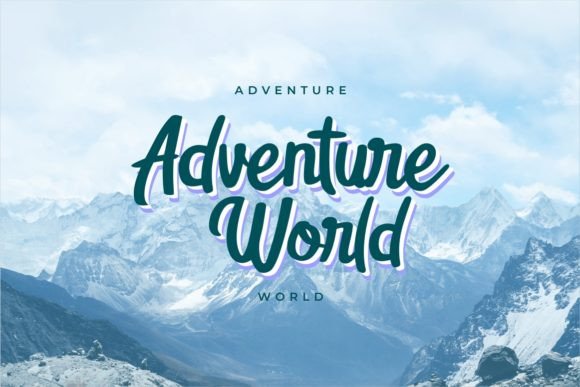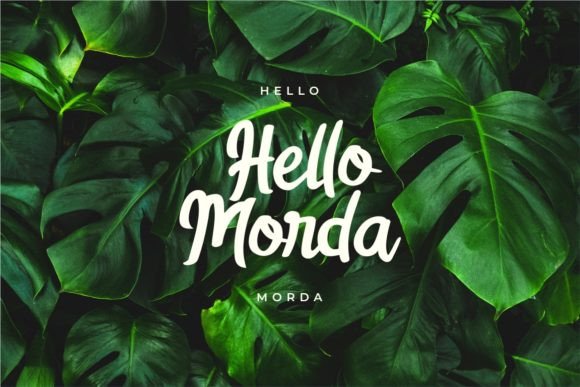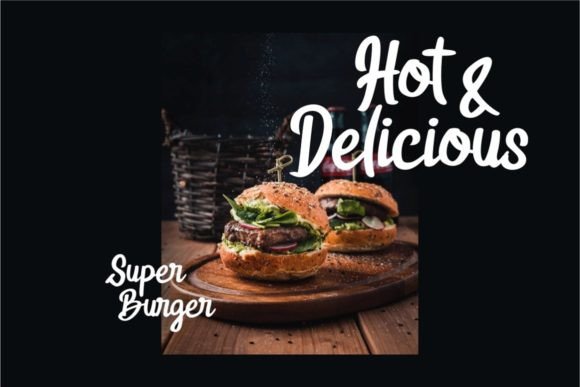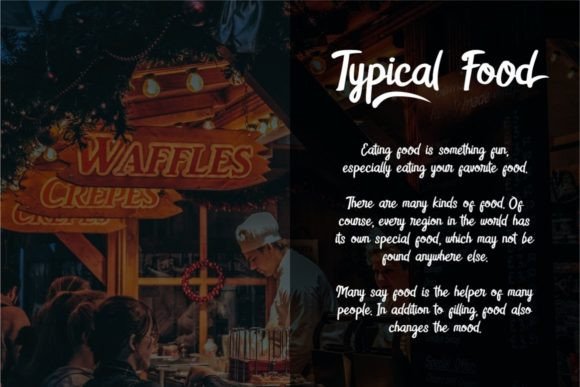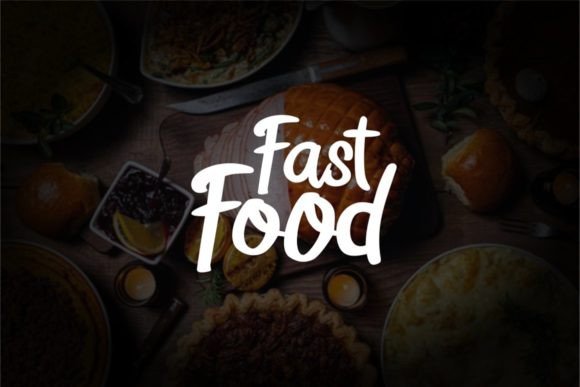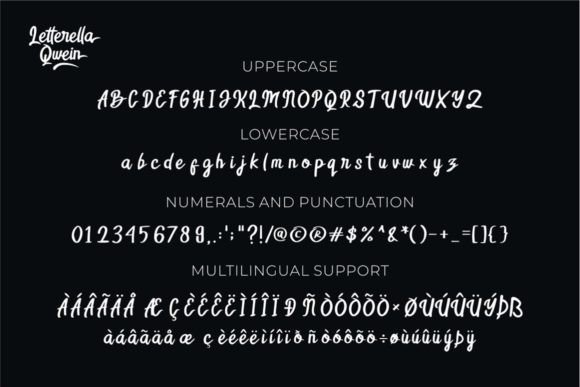
Introduction to Letterella Qwein Font
Have you ever found yourself in the midst of a creative project, desperately searching for the perfect font to bring your vision to life? The hours tick by, and the cursor blinks impatiently as you scroll through page after page of generic fonts. But then, it happens – you stumble upon that one font that makes your heart skip a beat. For designers, this moment is pure magic, and it’s what makes the search for the perfect design resource so thrilling.
Enter the Letterella Qwein Font, a stunning retro and paint brushed handwritten font that’s about to become your new best friend. With its elegant and curvy lines, this font is sure to make your work stand out from the crowd. Whether you’re working on a high-quality design project or simply need a unique touch for your next creative endeavor, the Letterella Qwein Font is the perfect addition to your toolkit.
- High-quality, professional design suitable for various creative projects, including logos, branding, and advertising materials.
- Features a unique, elegant design with a touch of sophistication, perfect for high-end or luxury branding projects.
- Designed to be highly legible and readable, even at small font sizes, ensuring that your message is conveyed clearly and effectively.
Honest Review: Letterella Qwein Font
As a designer, I’m always on the lookout for high-quality design resources that can elevate my creative projects. Recently, I stumbled upon the Letterella Qwein Font, and I must say it’s been a game-changer for me. ✨
Here are some of the things that I love about this font:
- High-quality design: The font is beautifully designed with a transparent background, making it perfect for any creative project.
- Unique style: The Letterella Qwein Font has a unique and elegant style that sets it apart from other fonts.
- No bold or italic options: The font does not have bold or italic options, which can limit its versatility.
Overall, I’m really impressed with the Letterella Qwein Font. It’s a great addition to any designer’s toolkit, and I highly recommend it for any creative project. Just be aware of its limitations and use it accordingly. ⚠️
The Letterella Qwein Font is a versatile, high-quality design resource ideal for creative projects. This font features a transparent background, making it a perfect addition to any design.
For optimal results, use the Letterella Qwein Font in conjunction with other design elements to create a cohesive and visually appealing design.
The Letterella Qwein Font is ideal for a variety of creative projects, including:
- Brochure design
- Business card design
- Infographic design